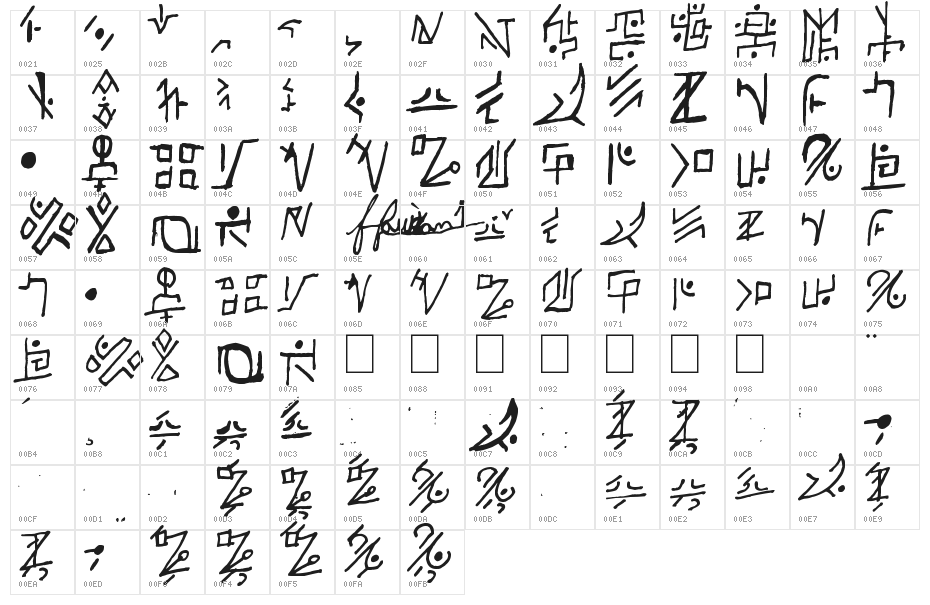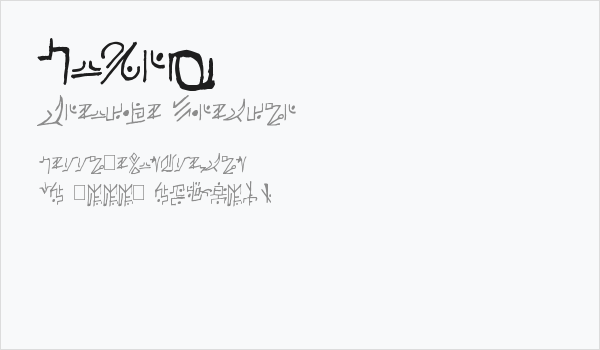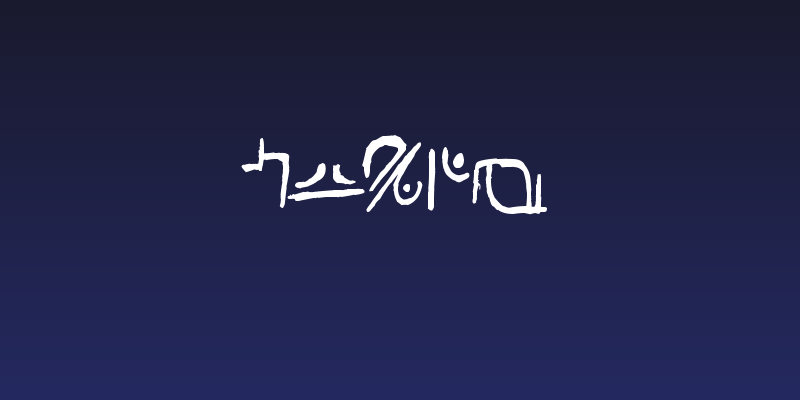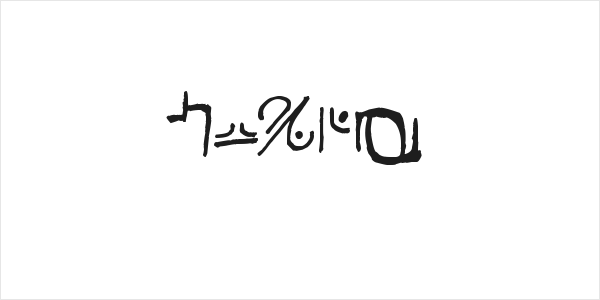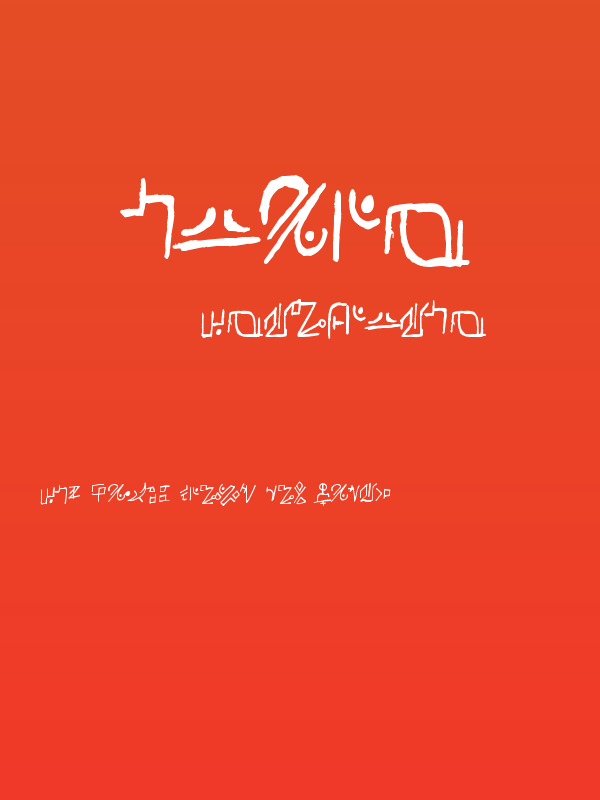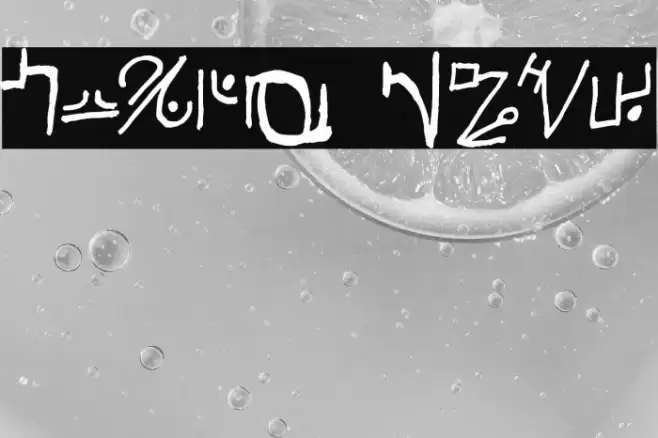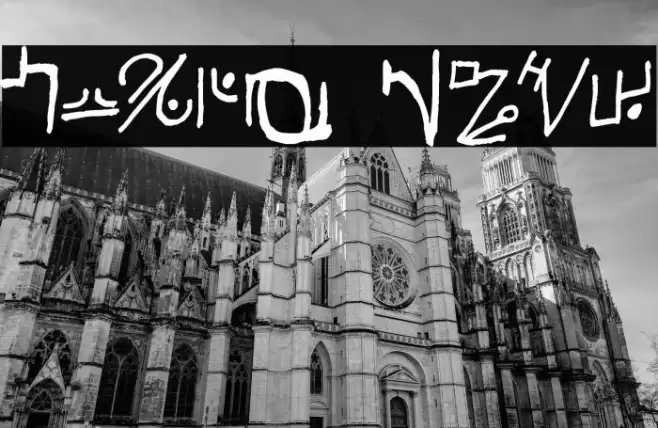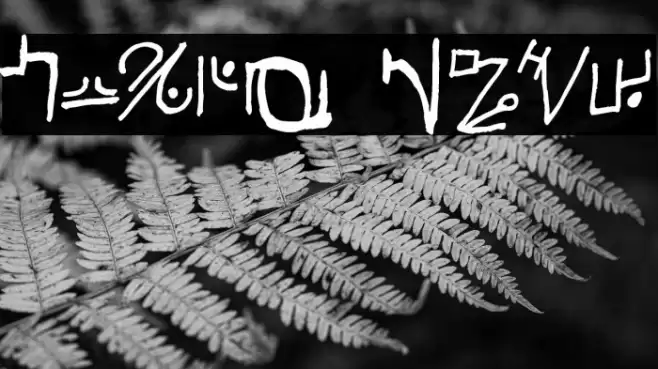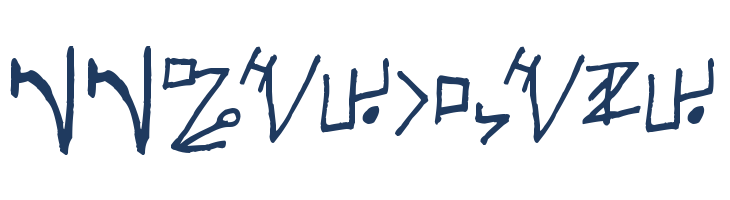
Haury Font
Haury Description
Highly stylized, abstract script with irregular, hand-drawn strokes and unconventional character shapes, giving an impression of ancient or coded writing rather than a standard alphabet. The glyphs vary in size and orientation, with uneven line thickness and a loose, organic structure.
| Overall Style | Decorative, Ancient, Mysterious |
| Use Case | Logos, Posters, Game UI, Fantasy Maps |
| Proposed Projects | Fantasy world-building, game design, mysterious or magical branding, artistic posters, cryptography-themed artwork. |